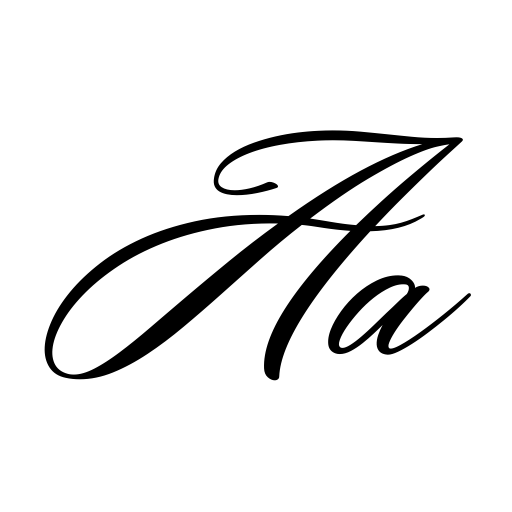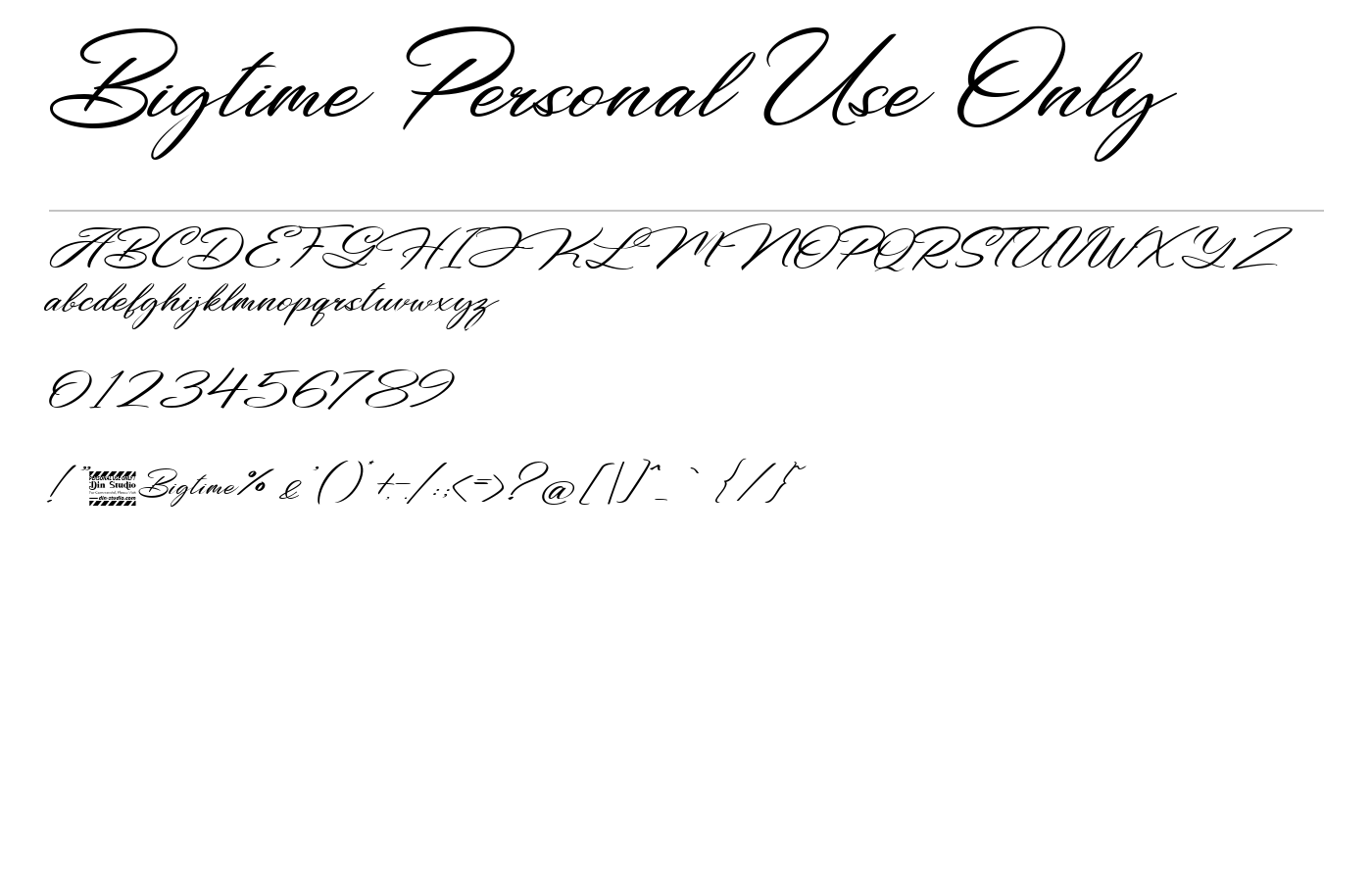
Bigtime Personal Use Only is an elegant script font characterized by its smooth, flowing strokes and refined calligraphic style. Its light weight and graceful letterforms give it a sophisticated yet approachable feel, making it ideal for invitations, branding, and stylish headlines where a touch of class and personality is desired. This font shines in projects that require a delicate, handwritten aesthetic without sacrificing readability.
Bigtime Personal Use Only Font
About Bigtime Personal Use Only Font
| Font family | Bigtime Personal Use Only Font |